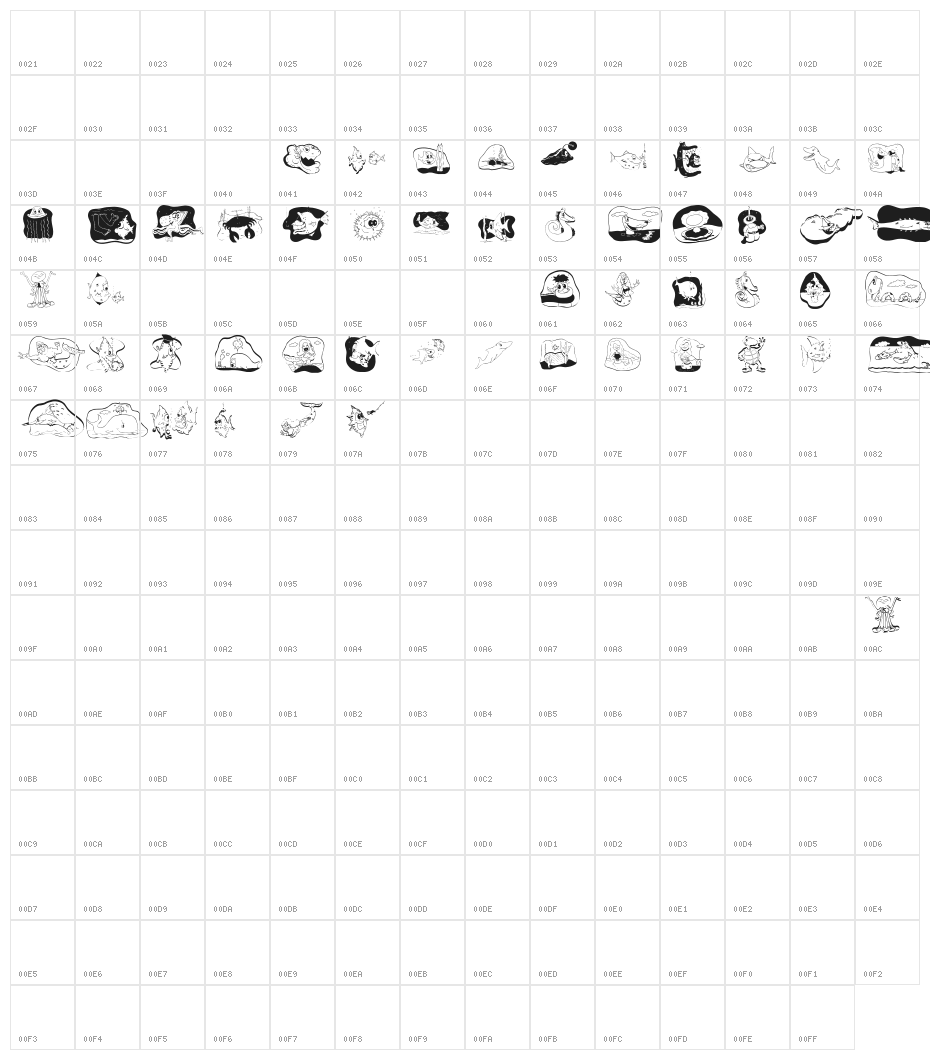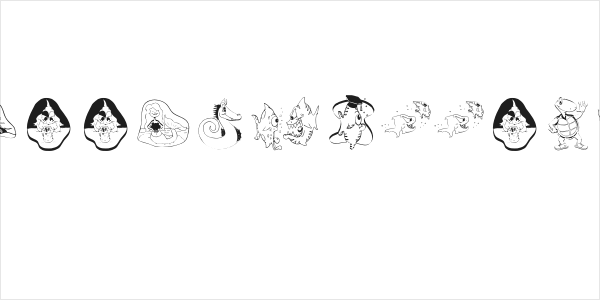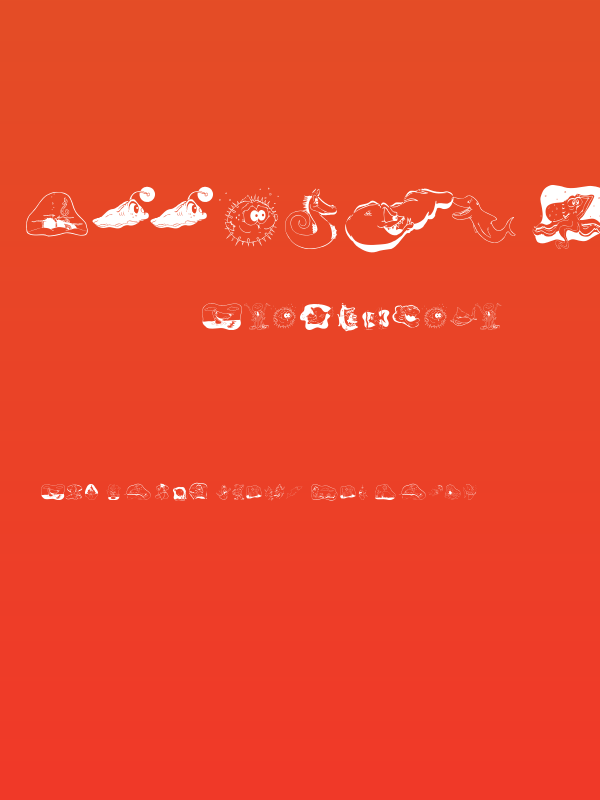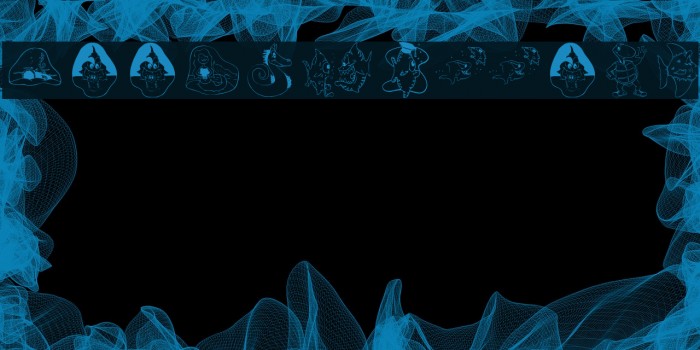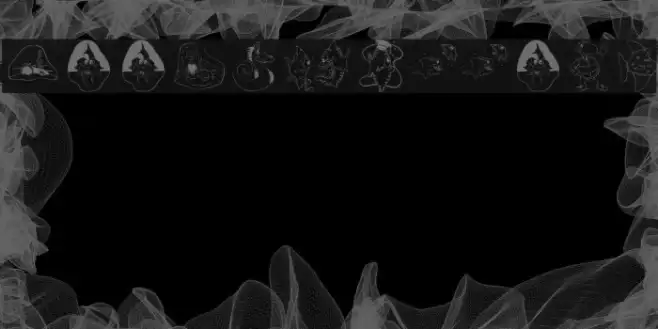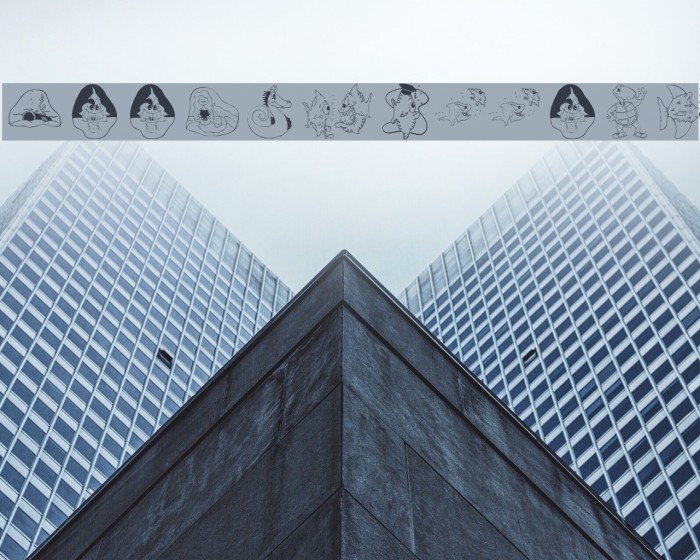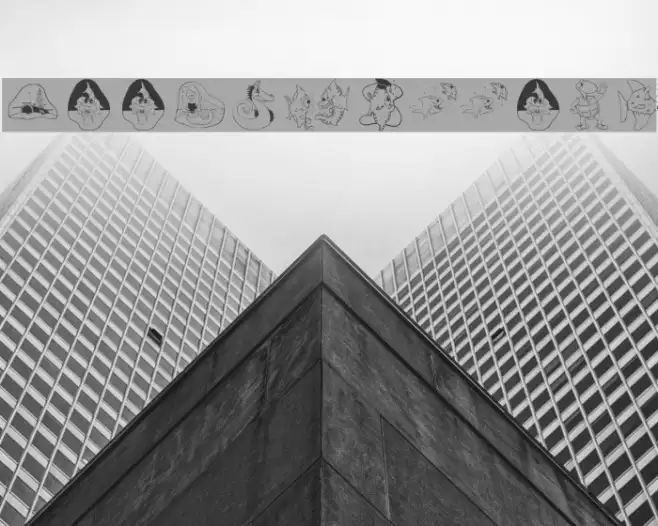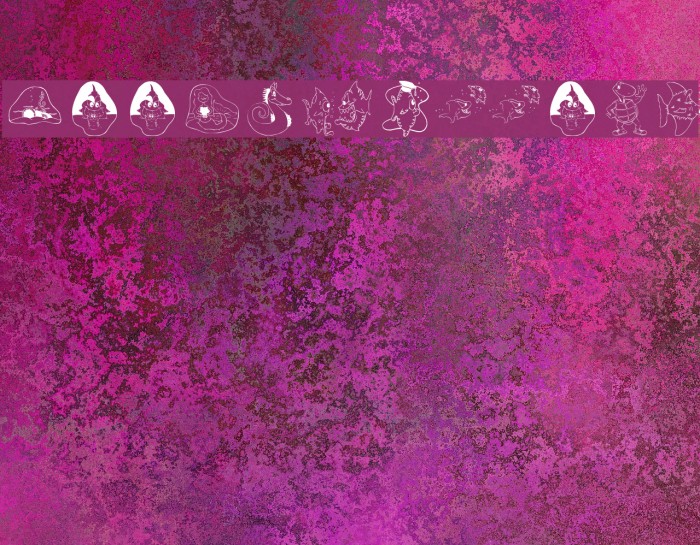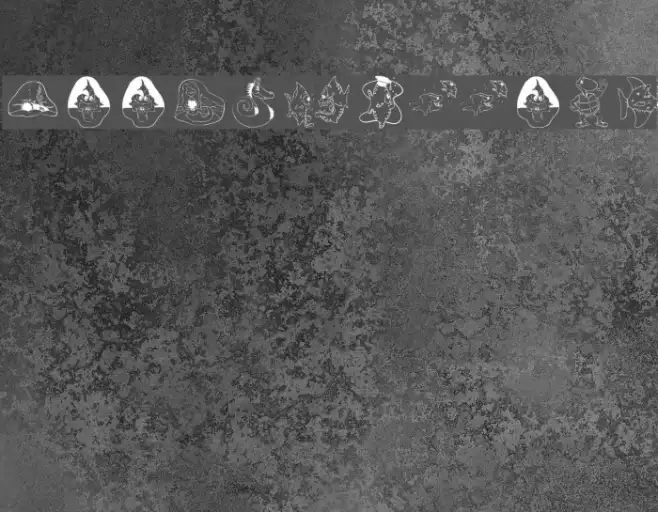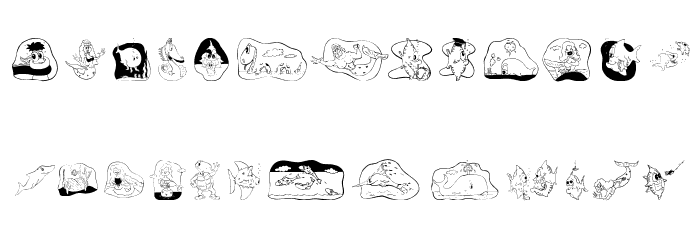
DeepSwimmers Font
DeepSwimmers Description
This is a decorative and playful font featuring whimsical aquatic-themed illustrations. Each character is represented by a unique underwater creature or scene, making it highly distinctive and visually engaging. The font is not designed for traditional text but rather for creative projects where each letter or number can stand alone as an artistic element. The characters are detailed and imaginative, capturing a sense of fun and creativity. This font is ideal for projects that require a touch of whimsy and a marine theme.
| Use Case | Logos, Posters, Creative Projects |
| Proposed Projects | Ideal for children's books, ocean-themed party invitations, educational materials about marine life, or any creative project needing a playful aquatic touch. |